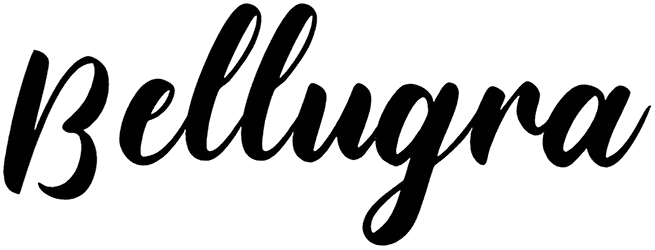
Bellugra Font
Bellugra has a modern feel that, when used effectively, can help you add depth and interest to your designs. This script font can become an integral part of any design whose history is as important as its appearance, and that wants to return to a simpler time.
So if you are looking for a powerful tool to personalize your writing and want to implement the text of invitations, modern websites, and any bold design with Bellugra, you will always retain your popularity.